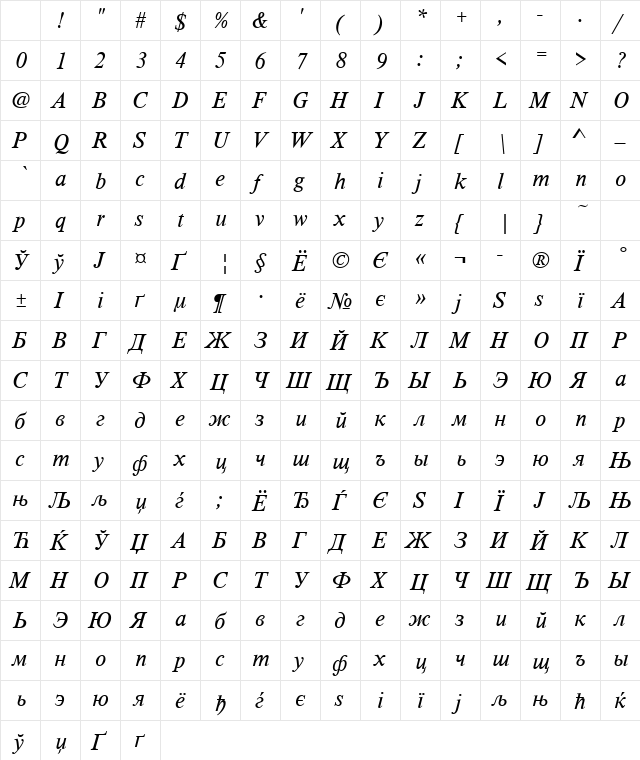
Complete TimelessTCYLig Italic glyph index. Displaying only characters natively supported by TimelessTCYLig Italic font.
TimelessTCYLig is a composed and adaptable typeface that performs quietly and consistently across a wide range of design contexts. The slanted form adds forward momentum and visual energy.